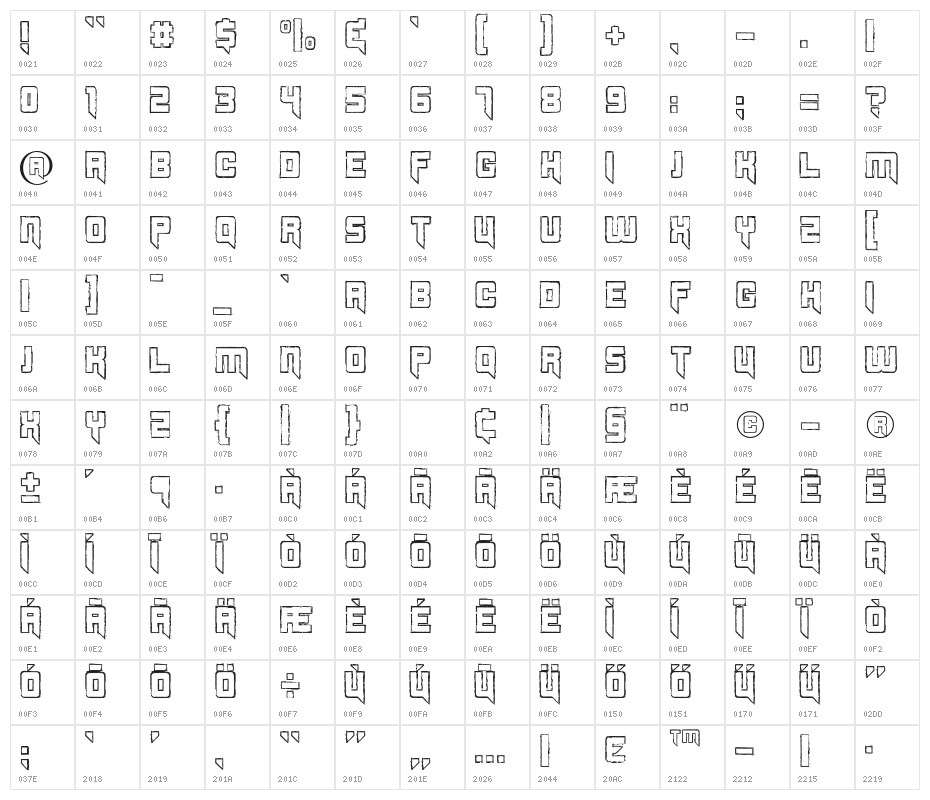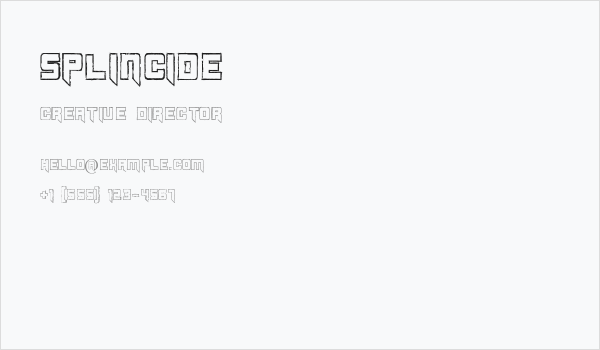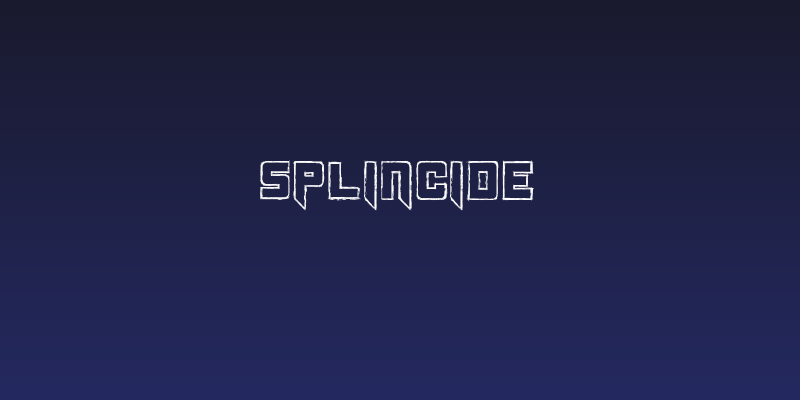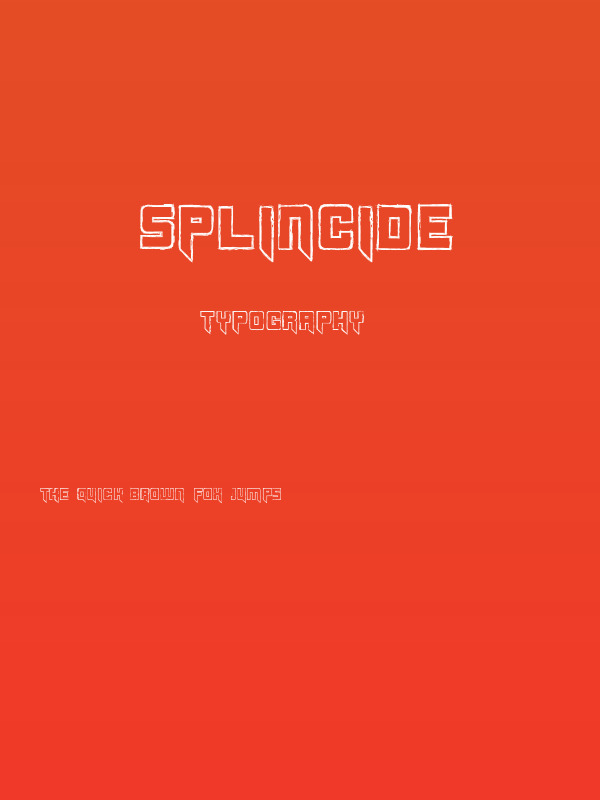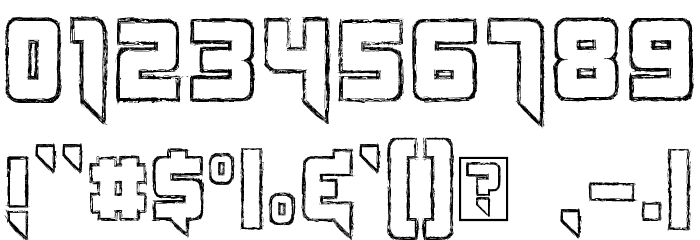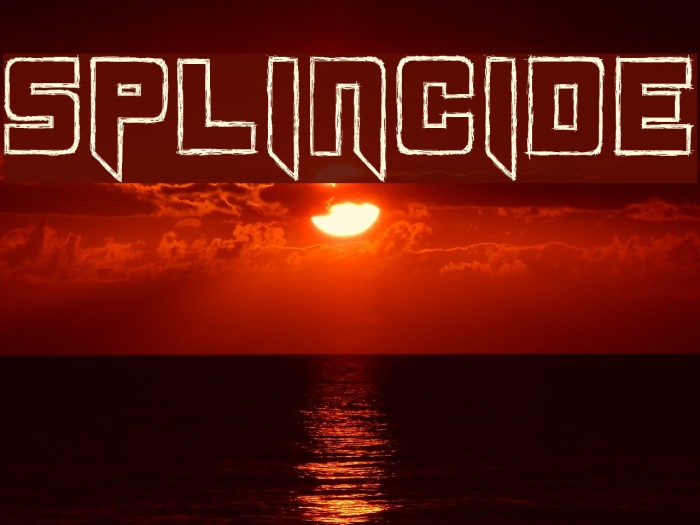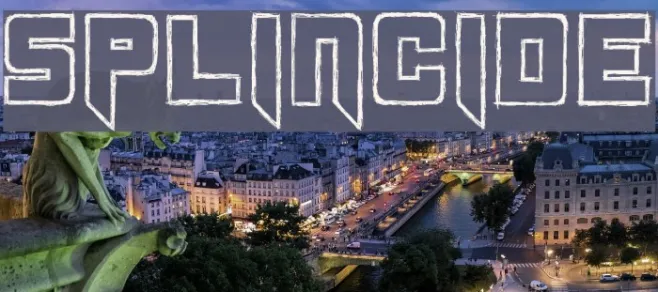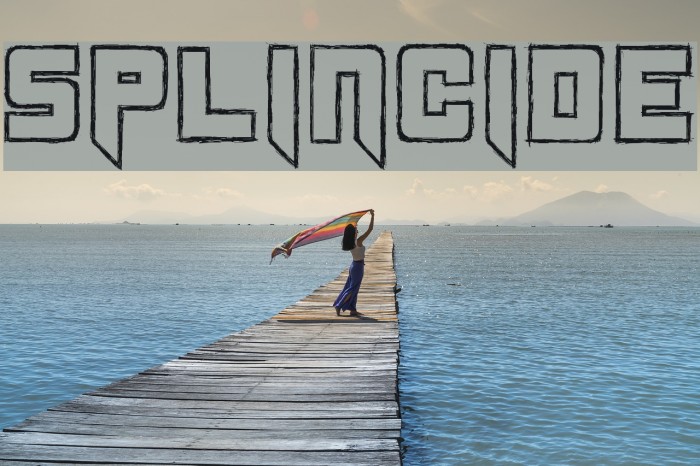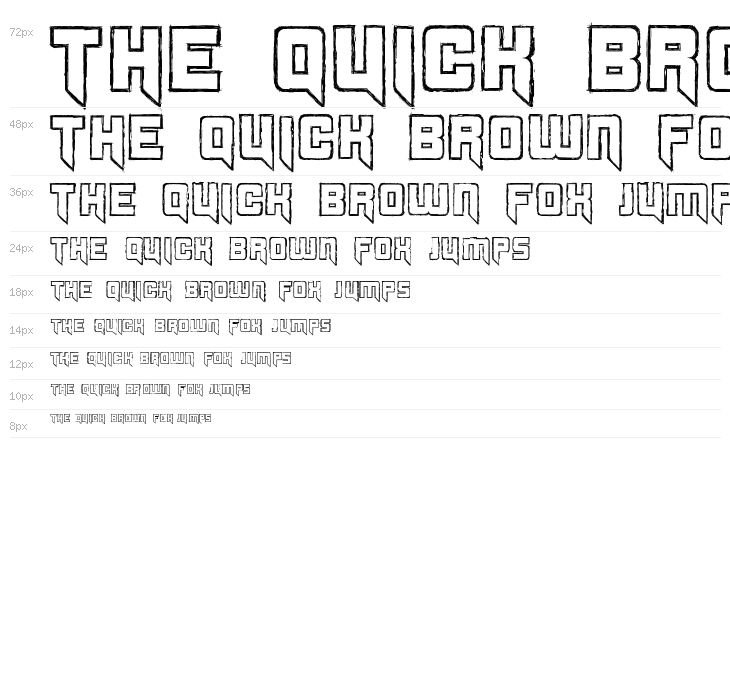
Splincide Font
Splincide Description
This font features a bold, angular design with a futuristic and edgy appearance. The characters are outlined with a thick stroke, giving them a three-dimensional look. Each letter and number is crafted with sharp, geometric lines, creating a sense of movement and dynamism. The font's unique style is reminiscent of digital or sci-fi themes, making it stand out in any design. The uppercase and lowercase letters maintain a consistent style, while the numbers and special characters complement the overall aesthetic. This font is ideal for projects that require a modern and bold statement.
| Overall Style | Futuristic |
| Proposed Projects | Ideal for sci-fi themed designs, video game titles, tech branding, and futuristic posters. |